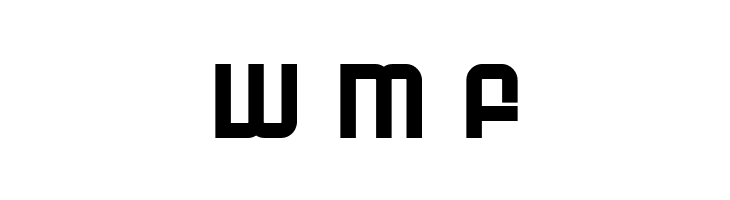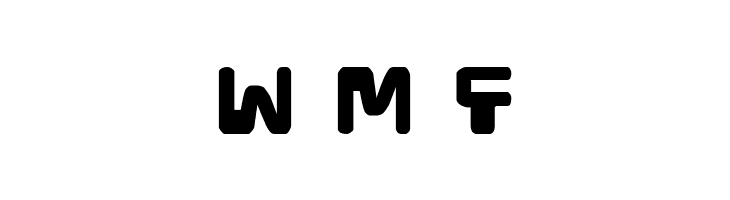
A modern, geometric font with a tall, narrow design and consistent stroke width.
A modern, geometric font with rounded edges and bold, uniform strokes.
A bold, geometric font with a futuristic and tech-inspired design.
A bold, geometric font with sharp angles and a futuristic feel.
A bold, geometric font with angular edges and a futuristic style.
A futuristic, italicized font with sharp, angular lines and a digital aesthetic.
A bold, geometric font with a futuristic and striking appearance.
A hollow, geometric font with a futuristic and modern style.
A bold, angular font with a futuristic and industrial design.
A futuristic, geometric font with a bold, interconnected design and three-dimensional effect.
A bold, angular font with a futuristic and edgy design.
A bold, geometric font with a digital, tech-inspired design.
A modern, geometric font with a futuristic and minimalistic design.
A modern, geometric font with a futuristic and sleek design.
A bold, rounded, and geometric font with a modern and futuristic style.
A thin, geometric font with a modern, futuristic design.
A futuristic, geometric font with bold, angular letterforms.
A modern, geometric font with a futuristic and streamlined design.
A bold, geometric font with a digital, futuristic style.
A rounded, geometric font with a playful and modern style.
A bold, geometric font with Art Deco influences and strong architectural elements.
A bold, geometric font with a modern, futuristic style and uniform stroke widths.